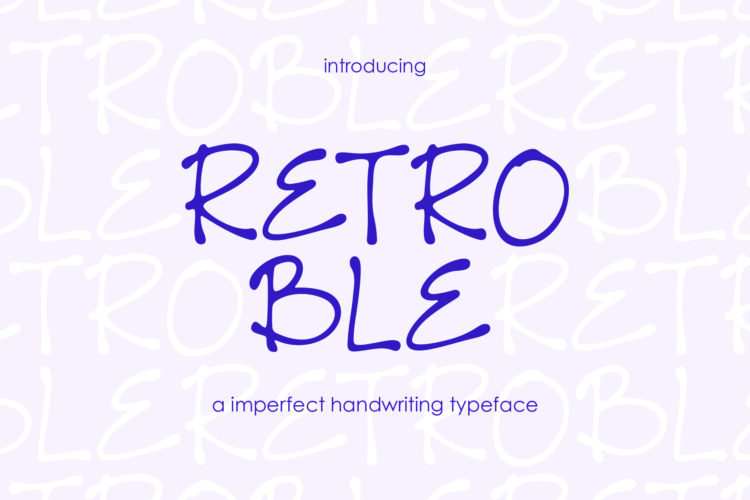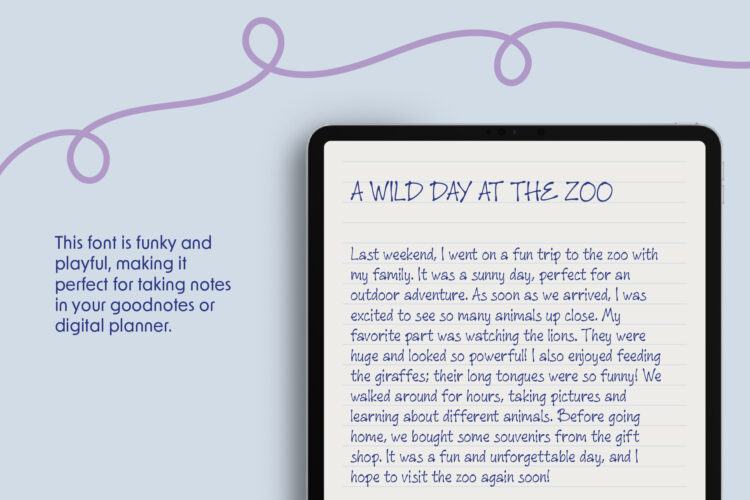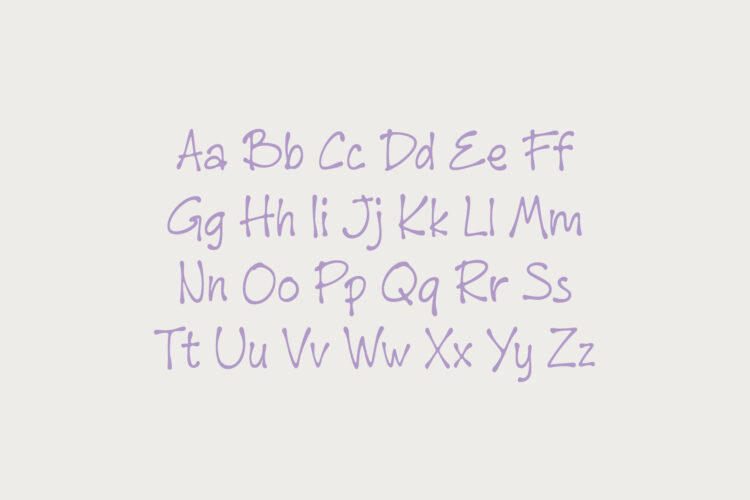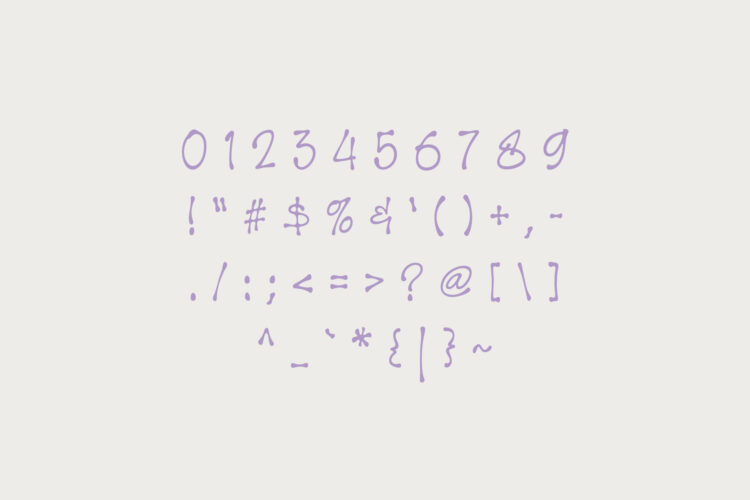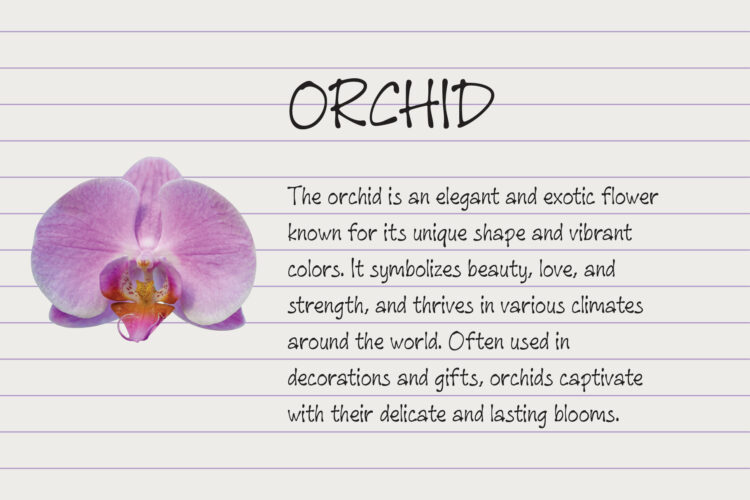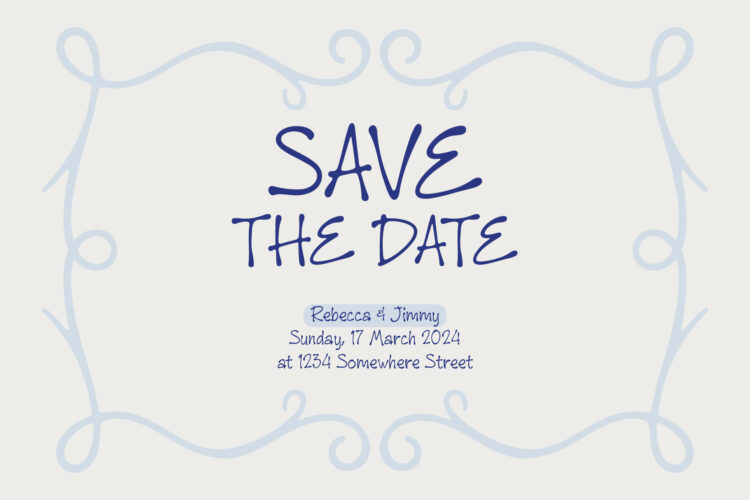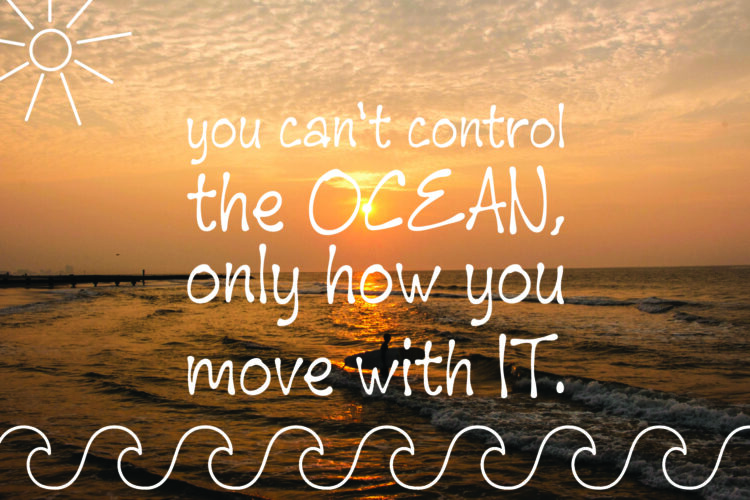
Introducing Retroble– a hand-drawn font that dares to be different. With irregular shapes, imperfect lines, and scribbled energy, this font is all about bold expression and creative chaos.
For example, it’s perfect for eye-catching posters, street-style artwork, album covers, or anything that needs a raw and rebellious edge. And it doesn’t follow the rules – that’s exactly the point.
Retroble includes uppercase, lowercase, numbers, and a set of basic symbols. So, you get all the tools you need to break the mold and create something original.